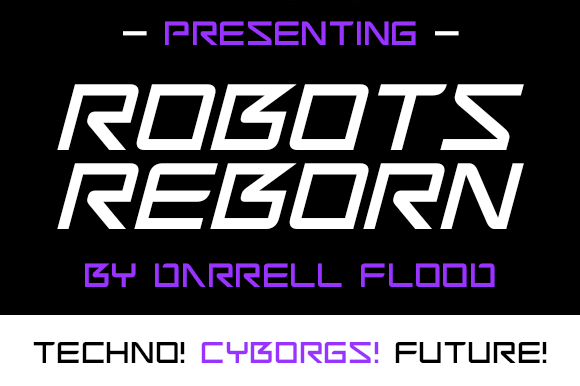
Introduction to Robots Reborn Font
Do you ever find yourself stuck in a design rut, yearning for the perfect font to bring your creative project to life? For me, it’s like searching for a missing piece of a puzzle. You’ve got the concept, the colors, and the overall aesthetic, but something’s just missing. That’s when I stumbled upon the Robots Reborn Font – a sleek, sci-fi font that’s out of this world!
This free download is a game-changer for designers looking to add a touch of high-tech flair to their designs. With its unique blend of angular and curvy elements, the Robots Reborn Font is perfect for alien encounters, robot battles, and any other creative project that needs a futuristic twist.
What I love most about this design resource is its high-quality, transparent background, making it easy to layer and manipulate in any design software. Whether you’re a seasoned pro or a design newbie, the Robots Reborn Font is sure to be a valuable addition to your design arsenal.
Key Features of Robots Reborn Font
- Robust and bold font, perfect for adding a futuristic touch to your design
- Unique blend of futuristic and industrial elements, making it a standout design resource
Honest Review: Robots Reborn Font
I recently had the chance to work with the Robots Reborn Font, and I must say, it’s a fantastic addition to any designer’s toolkit. With its free download option, this font is an excellent resource for those looking to add some industrial flair to their creative project.
What works well with the Robots Reborn Font is its high quality and versatility. It comes in a range of weights and styles, making it perfect for designing logos, icons, and even entire brand identities. The font’s transparent background feature allows for seamless integration with any design element, adding to its overall appeal.
Here are some of the font’s standout features:
- High-quality vector graphics
- Wide range of weights and styles
- Perfect for industrial, tech, and futuristic designs
⚠️ One limitation of the Robots Reborn Font is its limited character set, which may not be suitable for extended text-based projects. However, for creative projects that require a bold, industrial touch, this font is an excellent choice.
Overall, I’m impressed with the Robots Reborn Font and would definitely recommend it to designers looking for a high-quality, versatile font for their creative projects.
Getting the Most Out of the Robots Reborn Font
To get the most out of the Robots Reborn Font, consider the following tips:
- Use a high-quality image with a transparent background to showcase the font.
- Experiment with different font sizes and colors to create visual interest.
- Combine the font with other design elements to create a cohesive and creative project.
The Robots Reborn Font is suitable for a variety of design projects, including:
- Graphic design and branding.
- Web design and development.
- Print design and advertising.